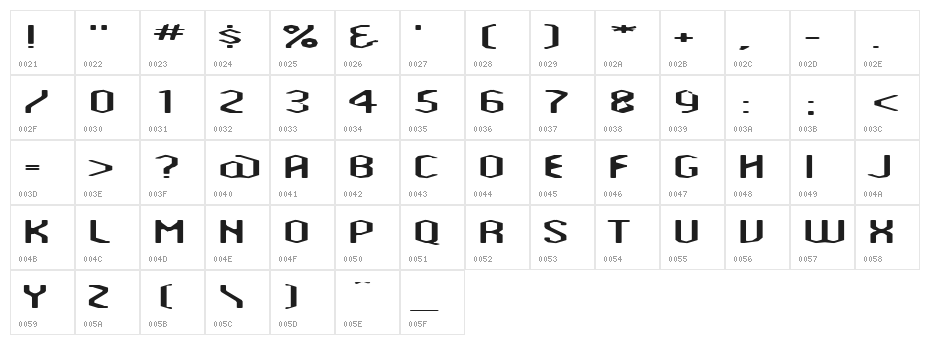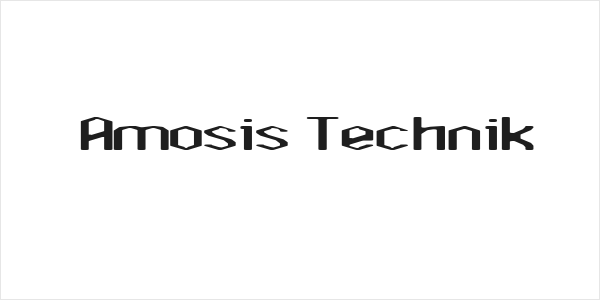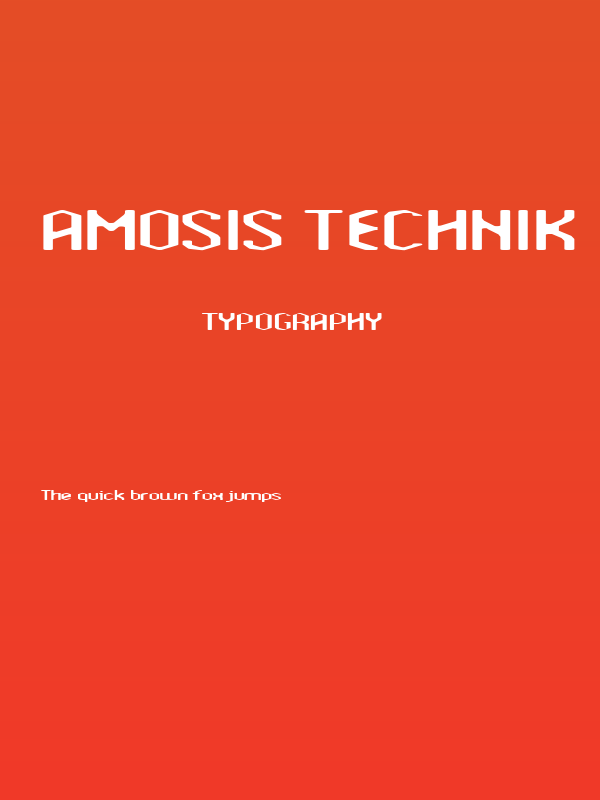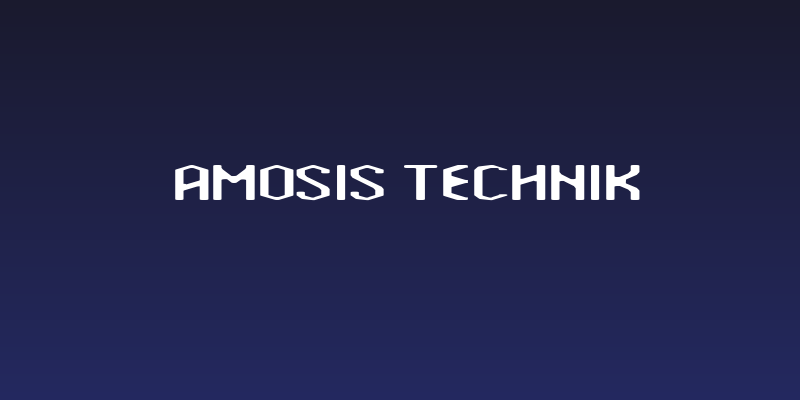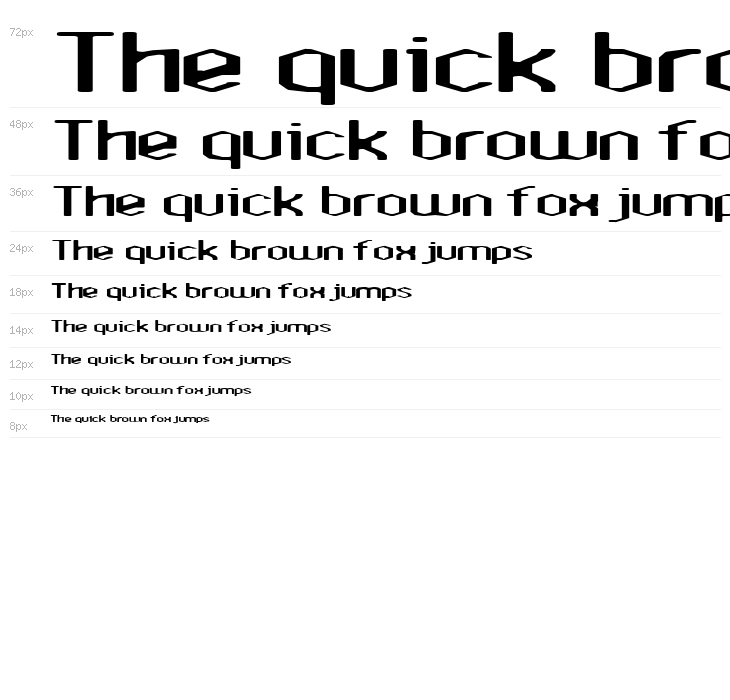
Amosis Technik Font
Amosis Technik Description
This font features a bold and geometric style with angular edges and a futuristic aesthetic. The uppercase letters are uniform in height, while the lowercase letters maintain a consistent baseline, offering a cohesive look. The numerals are distinct and easily readable, with a similar angular design that complements the alphabet. Special characters are crafted with the same attention to detail, ensuring they integrate seamlessly with the rest of the font. The overall appearance is modern and technical, making it suitable for projects that require a contemporary and edgy feel.